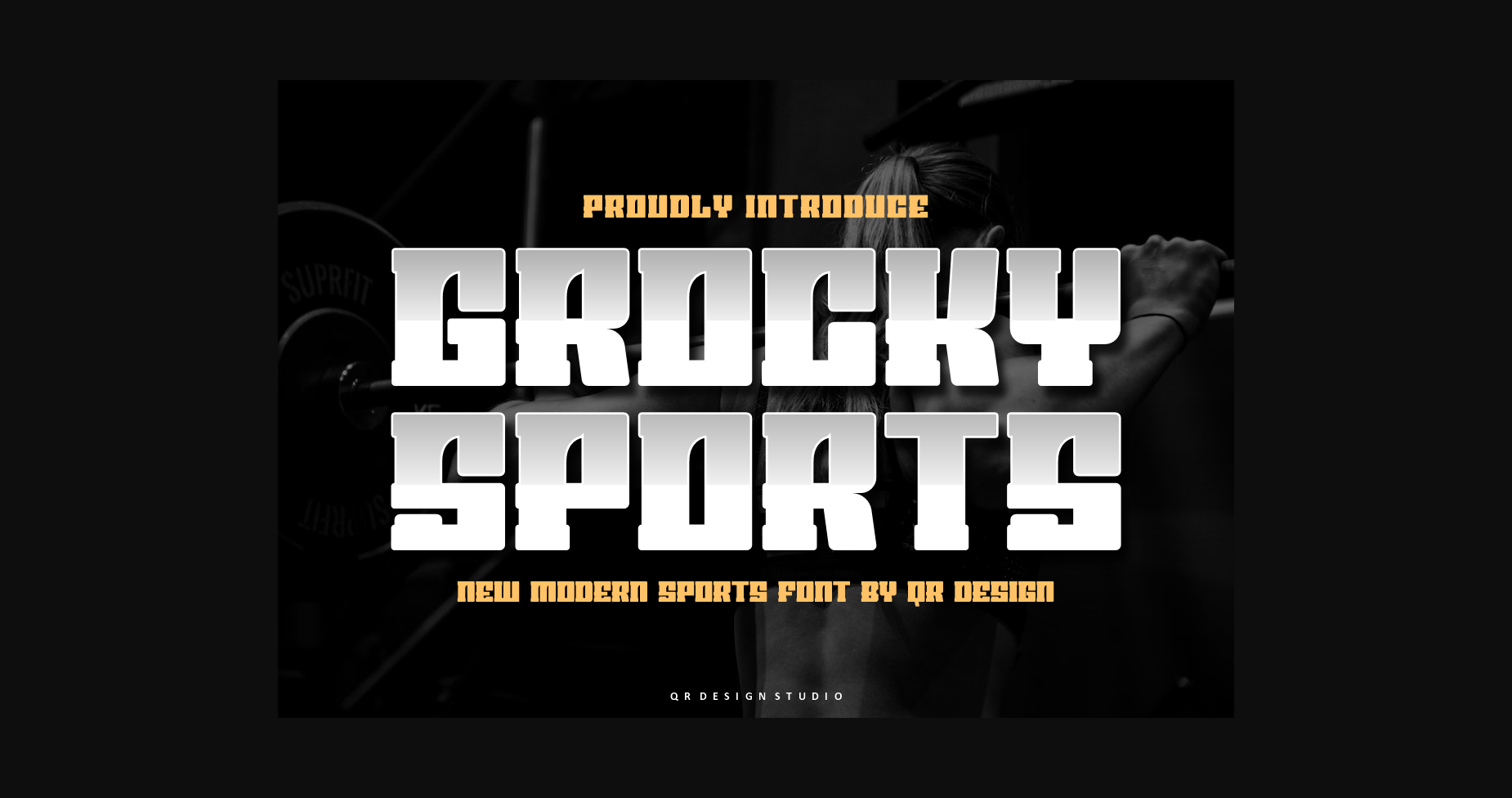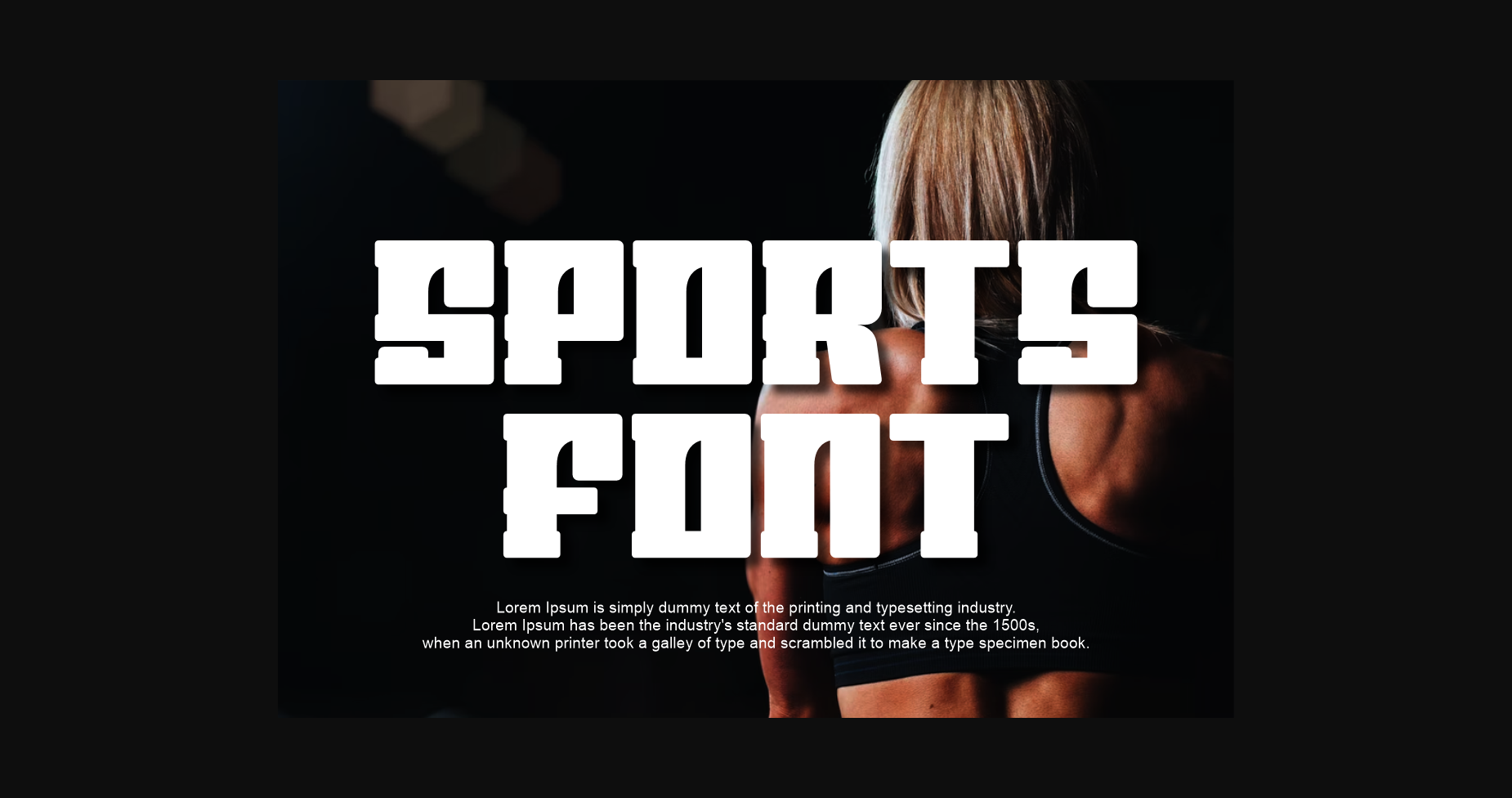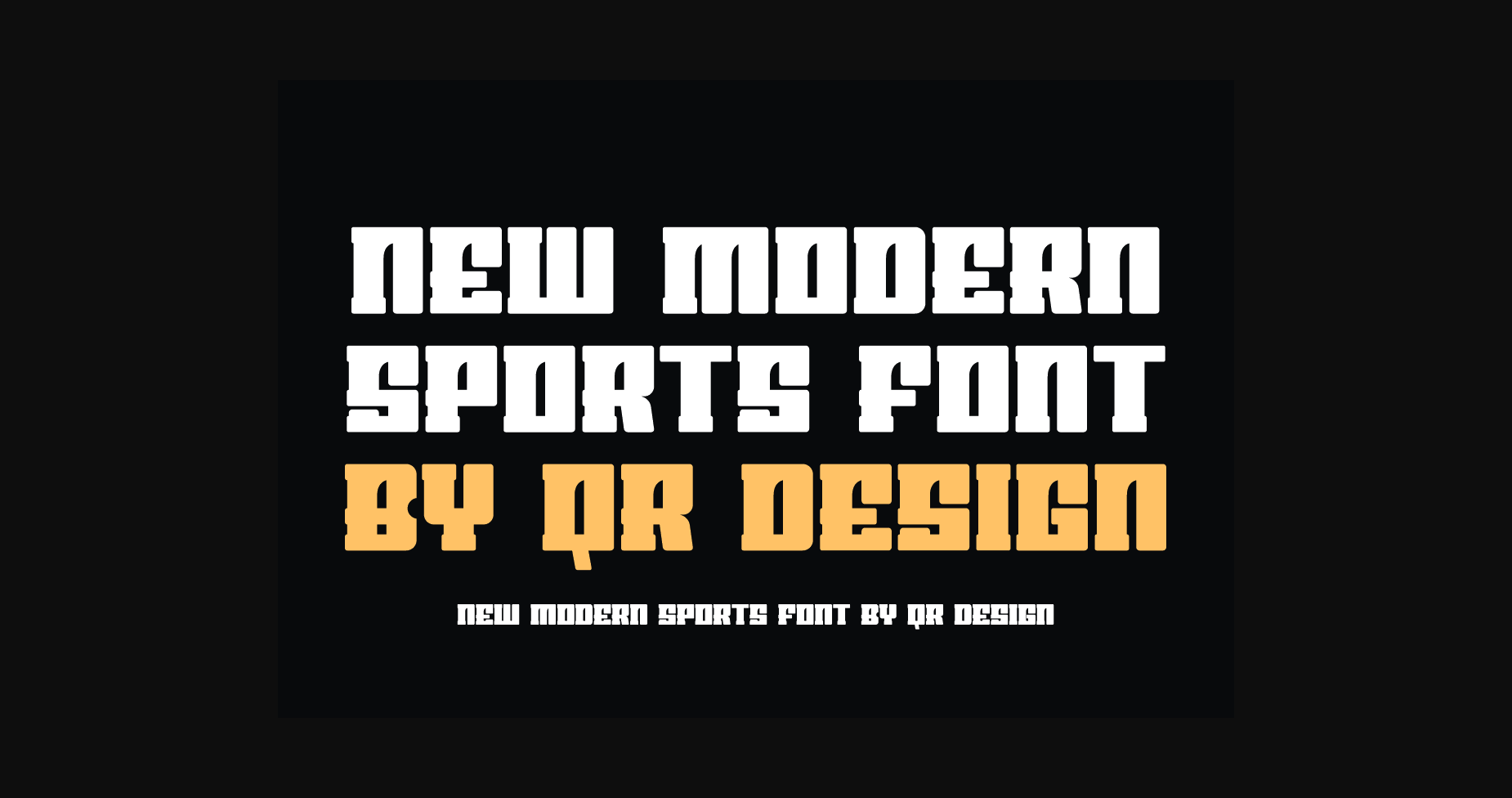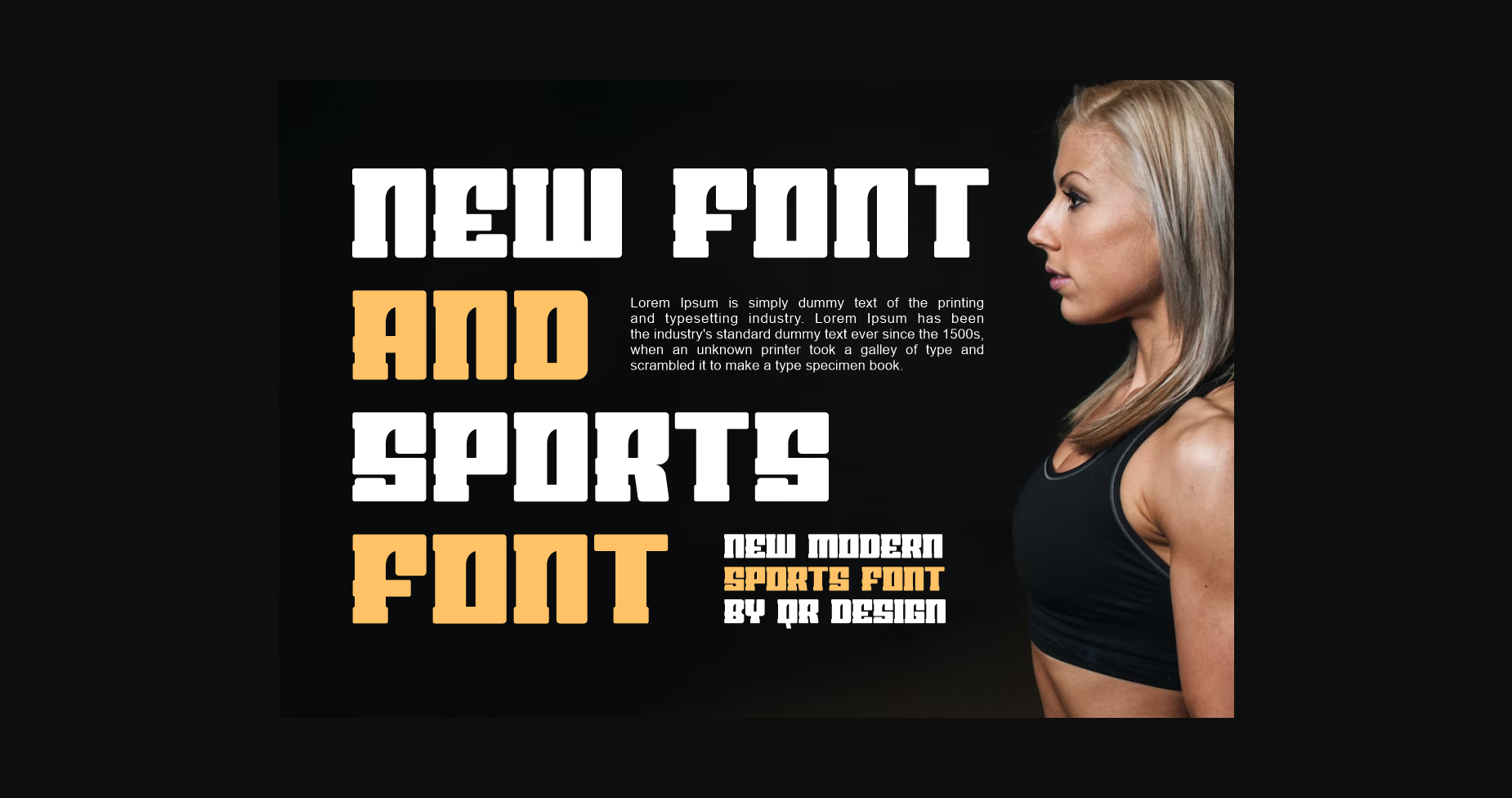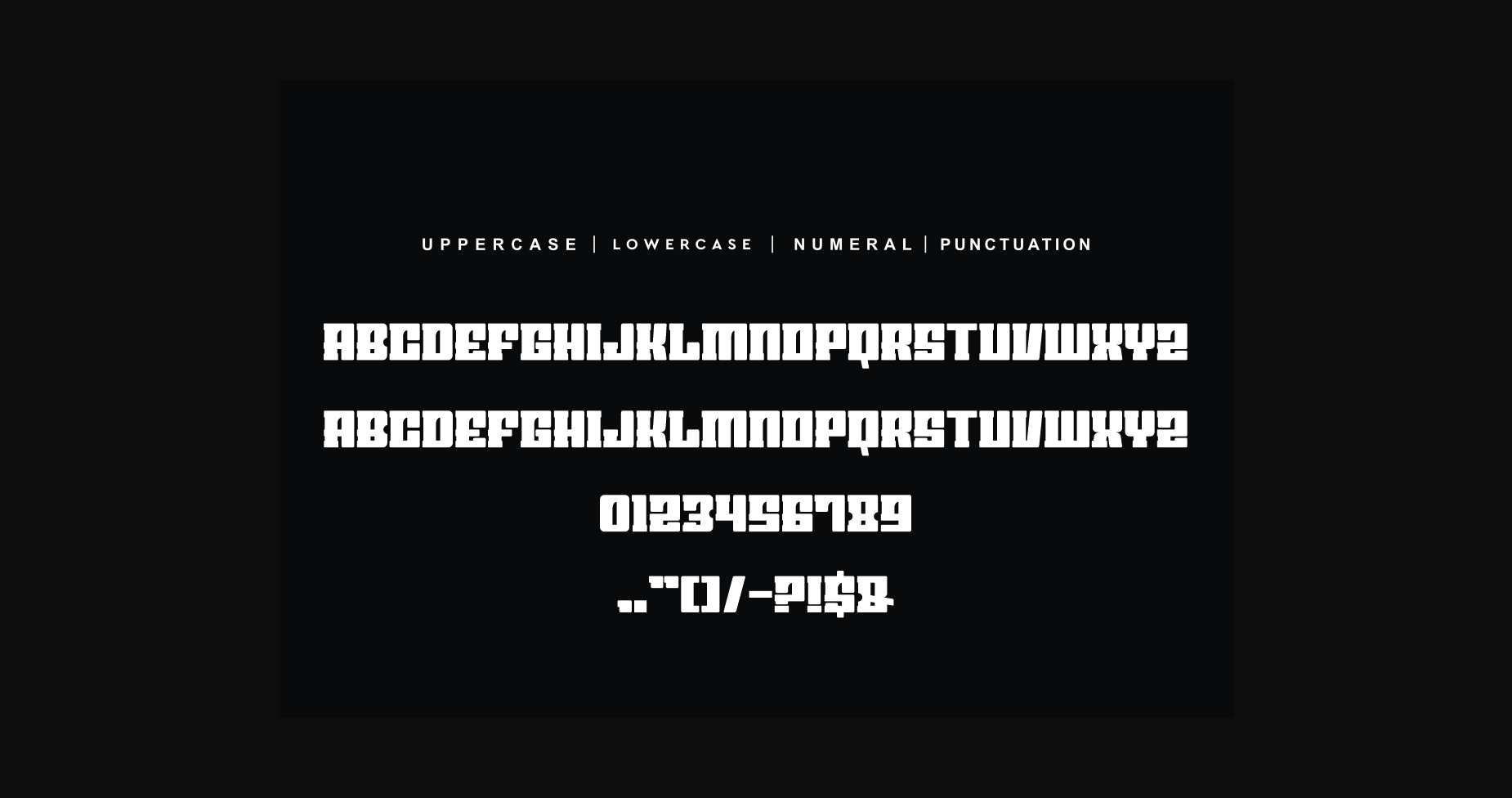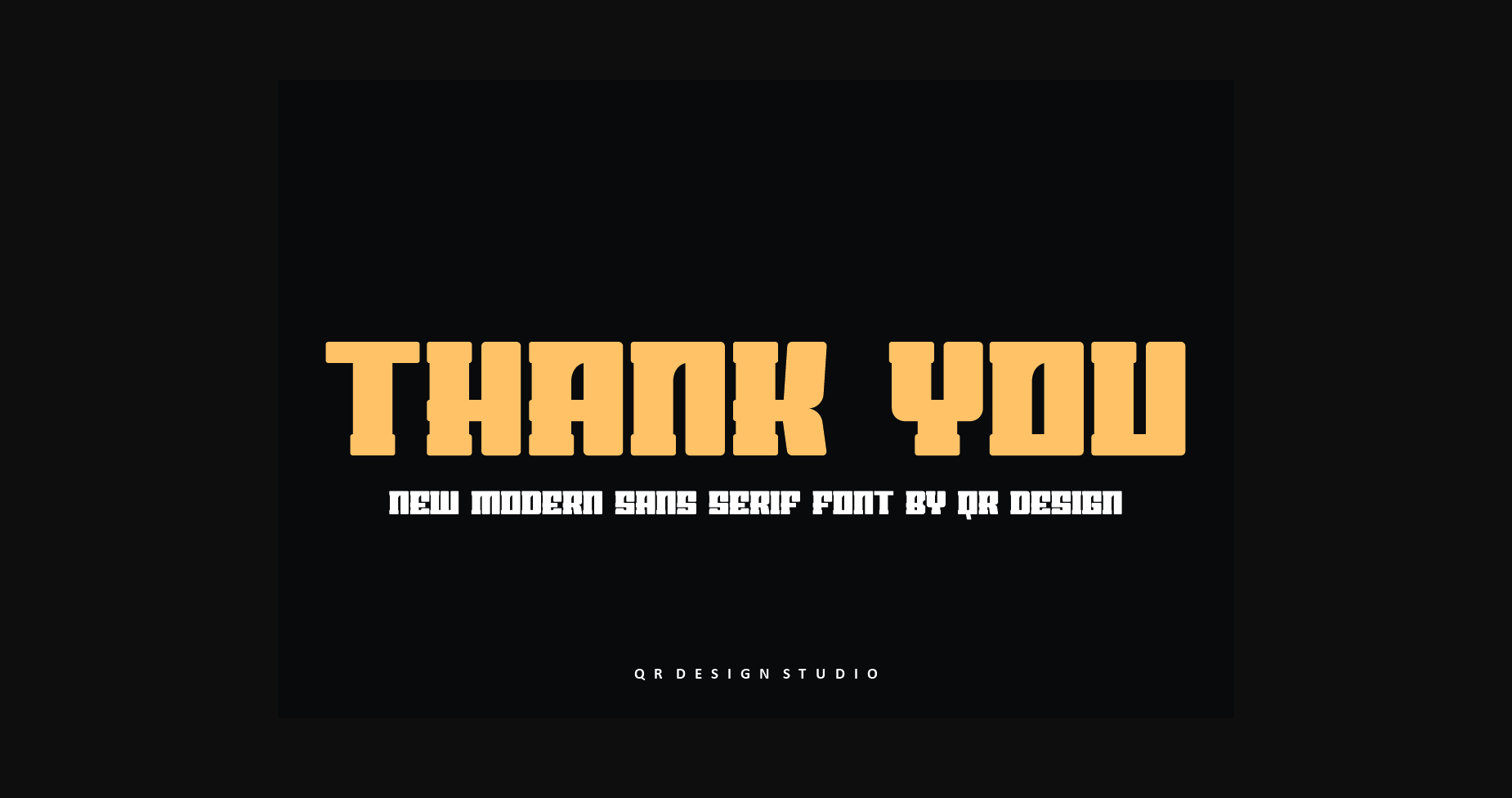
Grocky Sports Font
About Grocky Sports Font
Grocky Sports is unique, simple and clean font. It can easily be matched to an incredibly large set of projects, so add it to your creative ideas and notice how it makes them stand out!